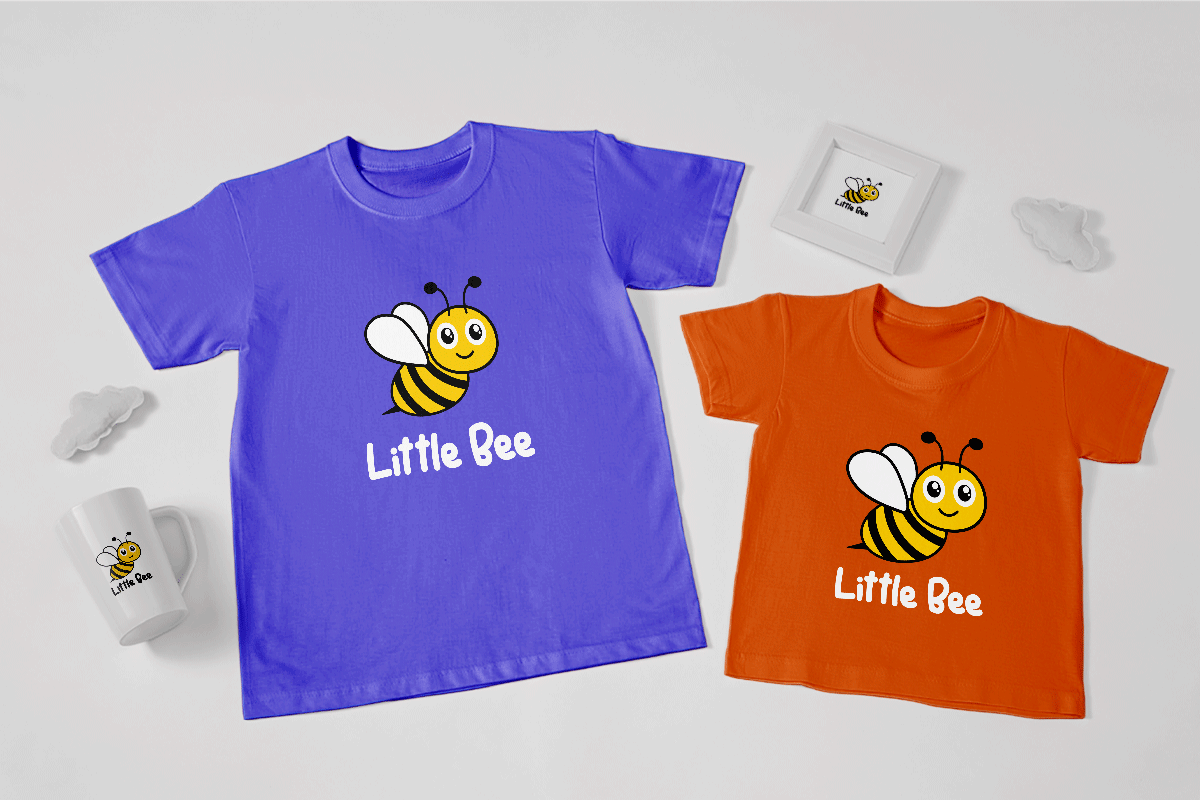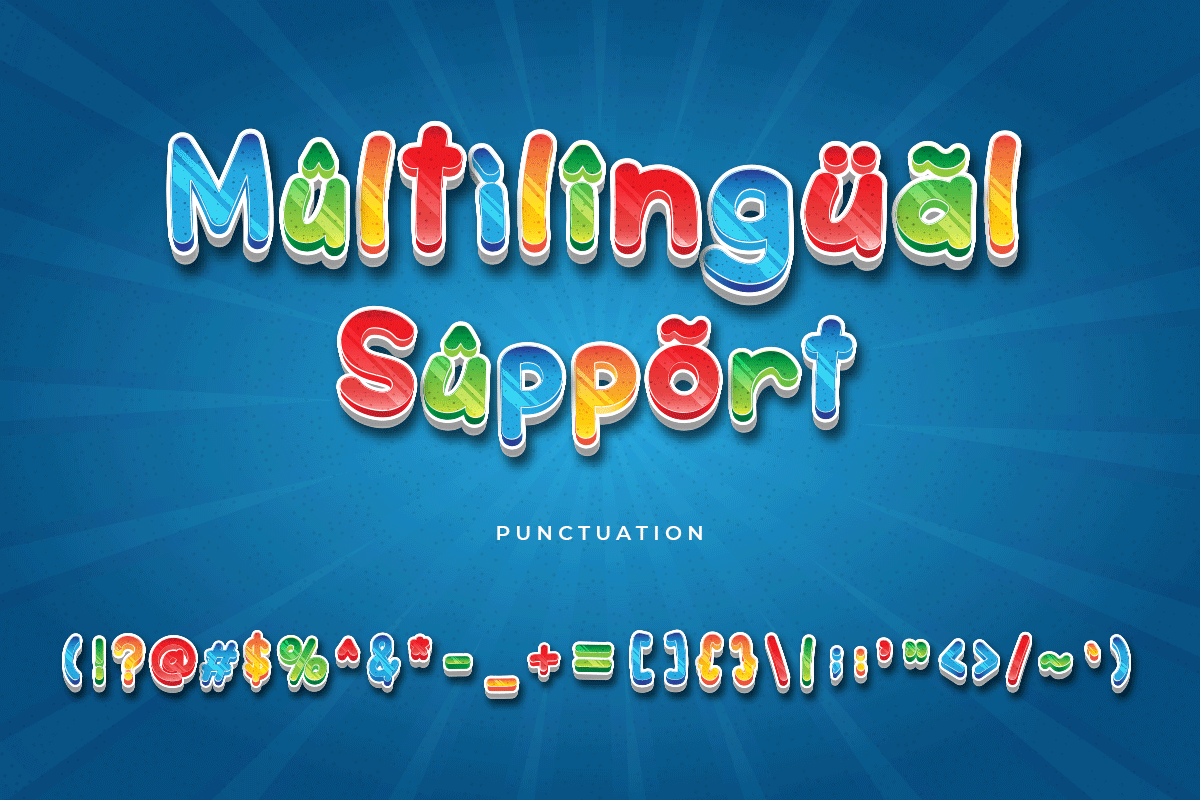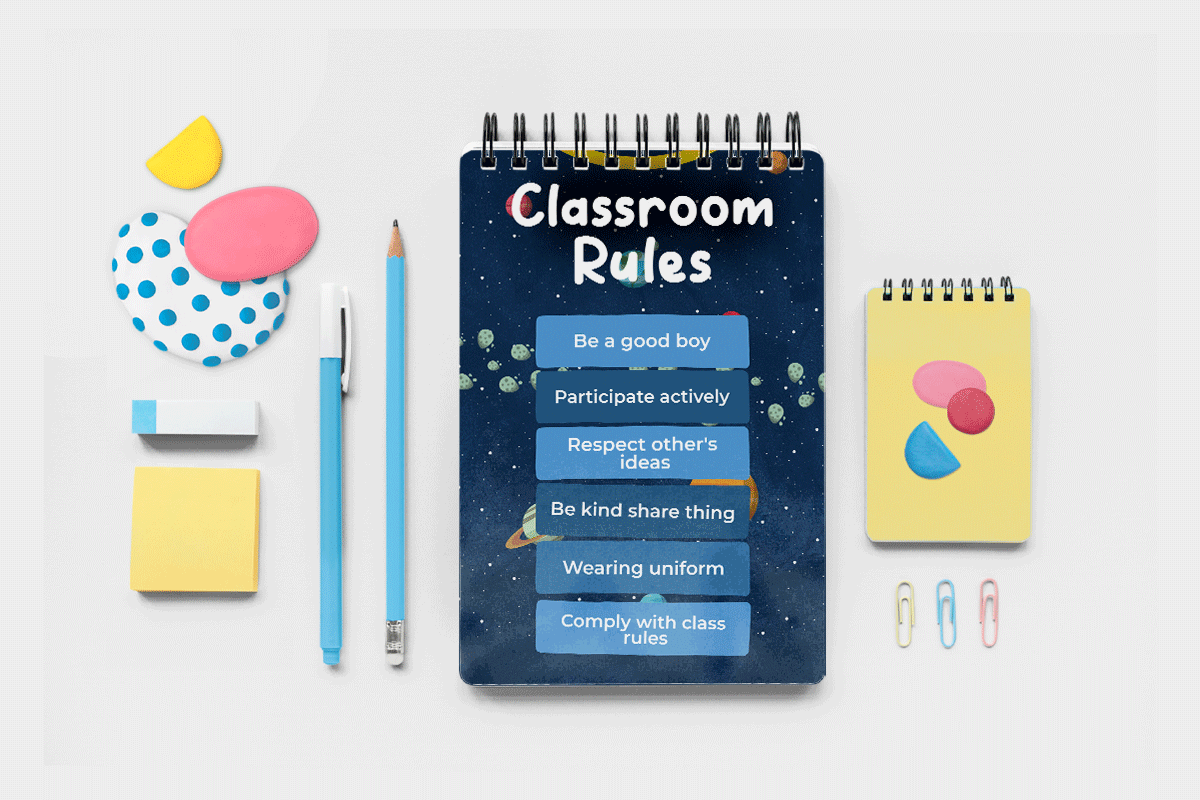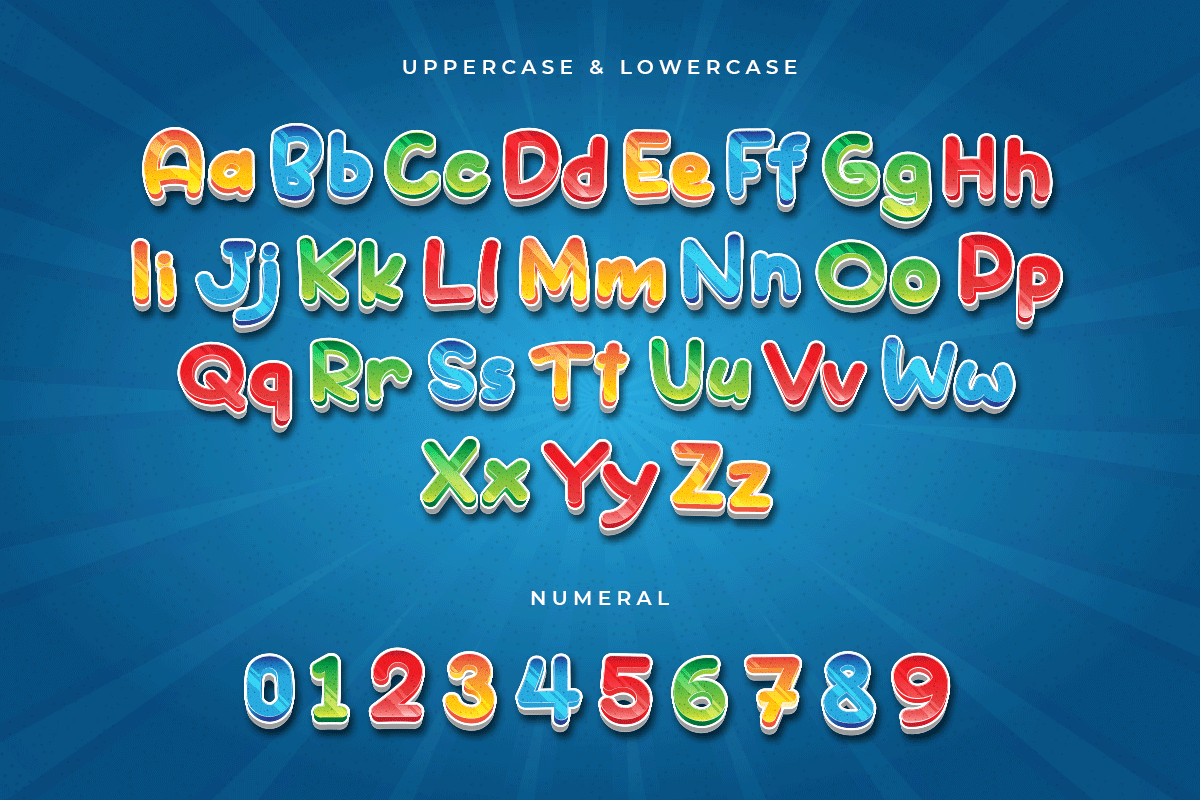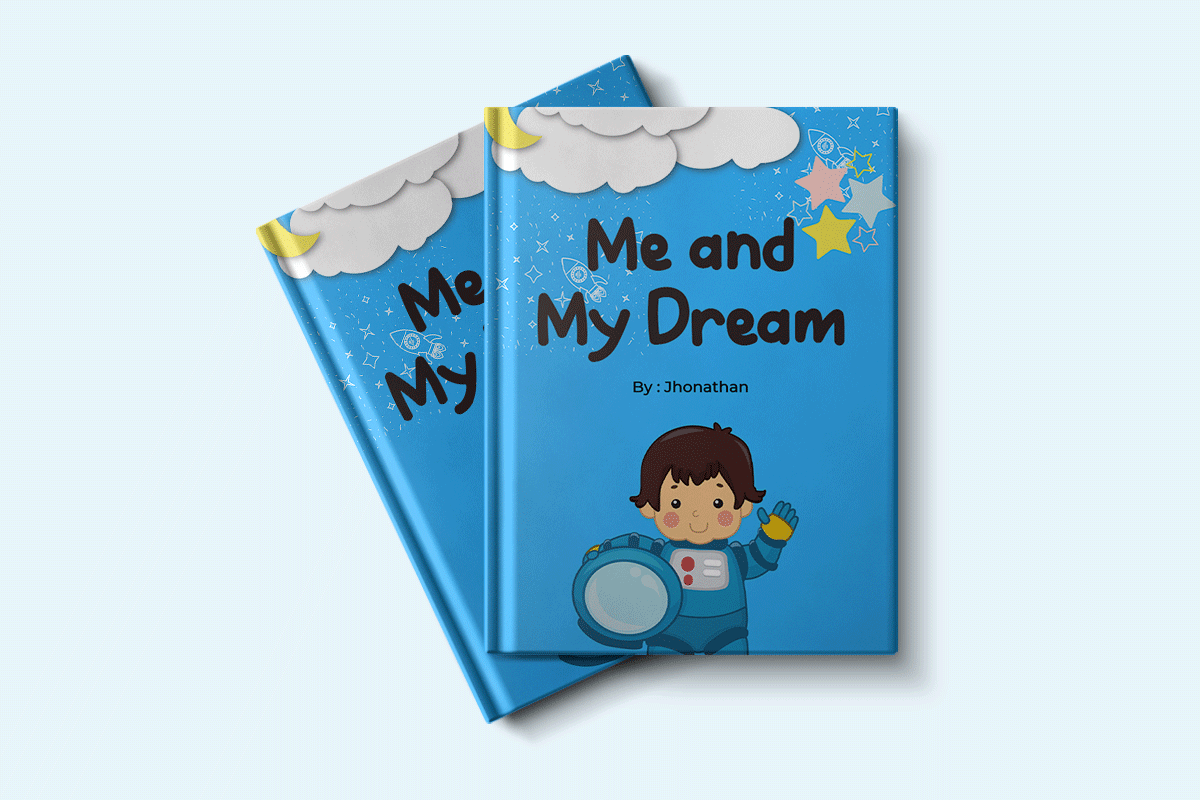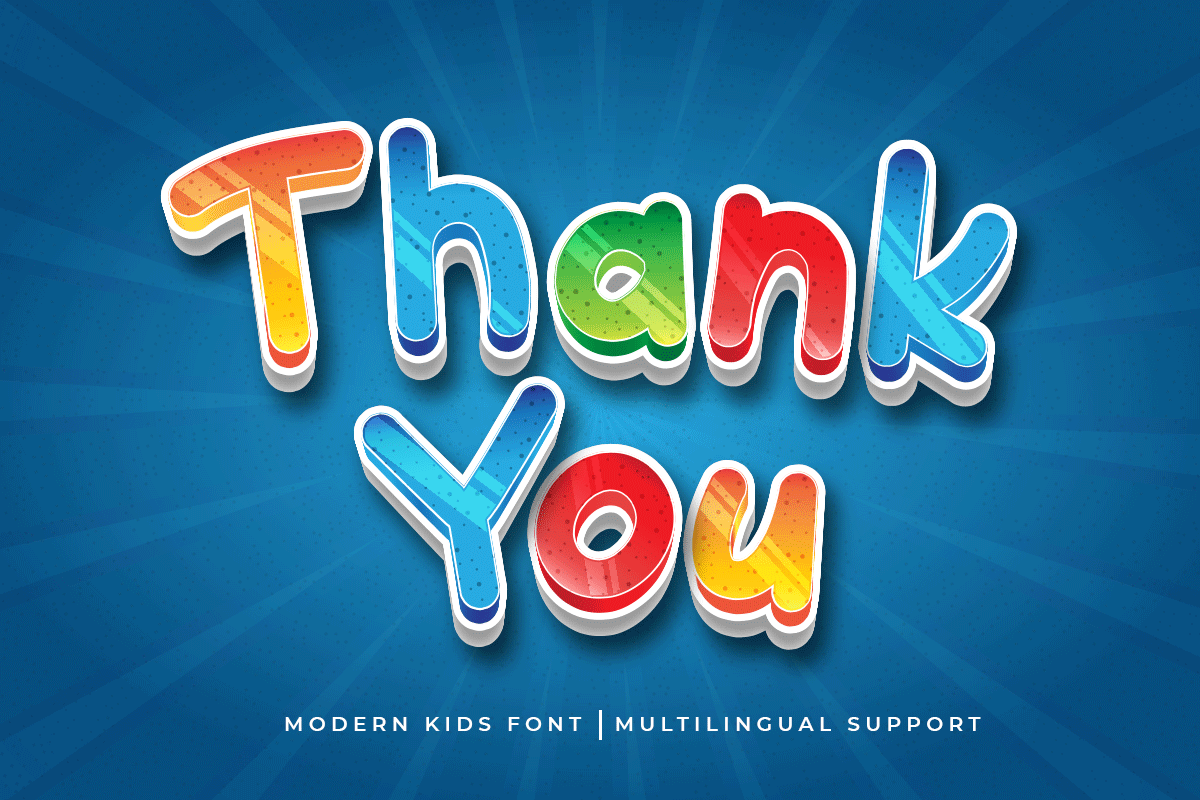
Time Zone Modern Kids Font was created to present a simple, fun, and cute impression to anyone who sees it. This is in line with the characteristics of clean, slightly inflated, and cute letters. Each letter can be distinguished easily. People who read texts using this typeface do not have to try hard to read and understand them. As the name implies, Time Zone Modern Kids Font is perfect for use as a poster containing kids' needs. This font is also very suitable when used for children's equipment, such as clothing item designs. This is because of its simple and cute shape. This type of font can be printed in small or large sizes and still looks good up close or from a distance. For people who like simplicity and do not like the appearance of a busy design, Time Zone Modern Kids Font will be a good choice. This font is also suitable for use as a digital font, such as in a video, movie title, and displaying quotes on social media. Our Display & Futuristic font collection is compatible to use as; Figma fonts, Canva fonts, Freepik Fonts, and Adobe Fonts. They also work as Windows Fonts and Apple Fonts. For your social media needs, you can use and install fonts in our collection of Espot & Futuristic fonts to use as Instagram Fonts, Facebook Fonts, and Twitter Fonts. For our customers, we provide a collection of The Best display Fonts, each with its unique styles and characteristics, so that our customers can create any design they want. We know what our clients love! That is why we prepare everything you may need in one simple downloadable package for you. Our easy-to-grab package contains all of the files you will ever need to create beautiful typography!